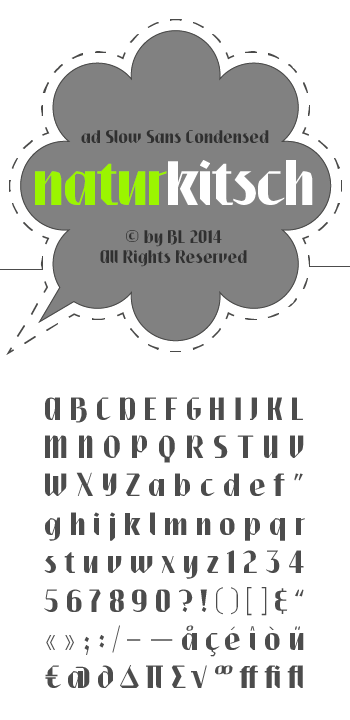
db Slow Sans Condensed
Great stuff. i love "k"
As good as the original. 10/10 & fav.
I'm loving it!
Oh wow, this is really pretty! I don't really like the Q though.
I agree. The two characters where most FontStructors just can do whatever they want, are the Q and the g. (Oh, speaking of which: compare the spurs of the a, g, and q, please, because I think the g has to be like the others.)
Great font!
The X/x look a bit too thin in comparison to other characters.
I love the contrast in this font.
and agree for the nice K